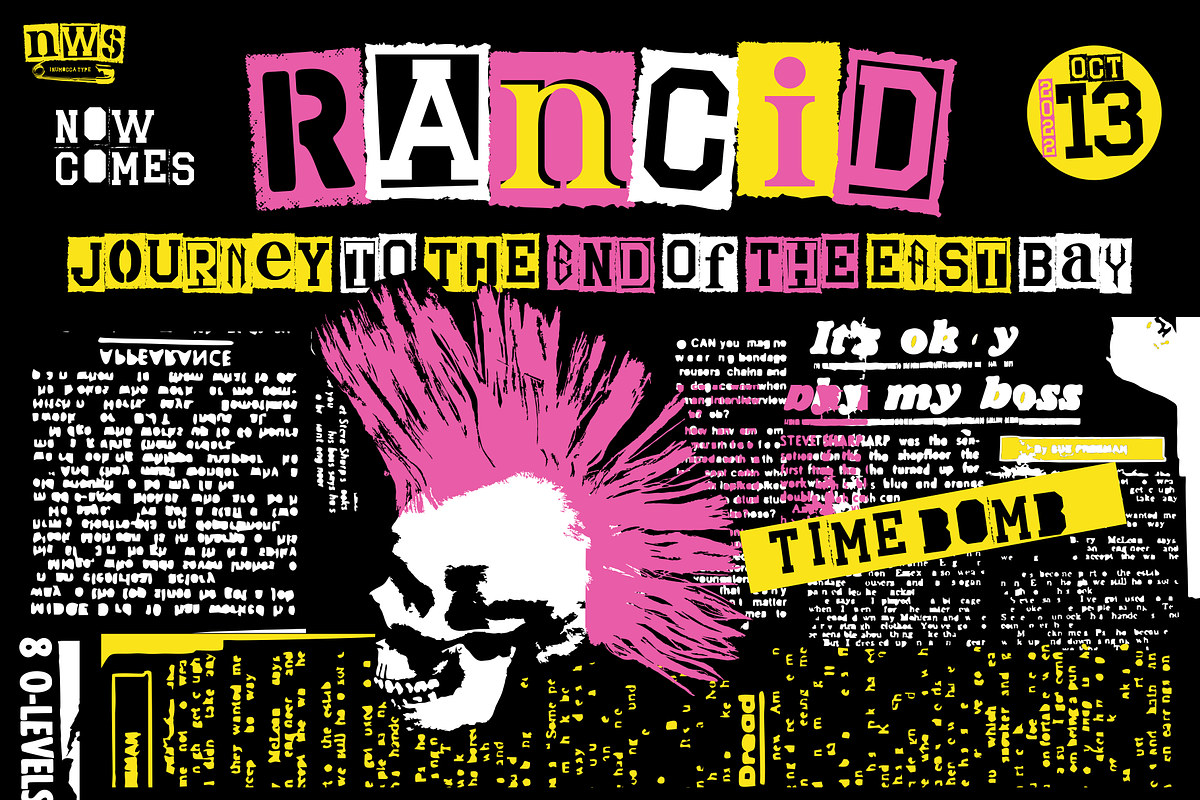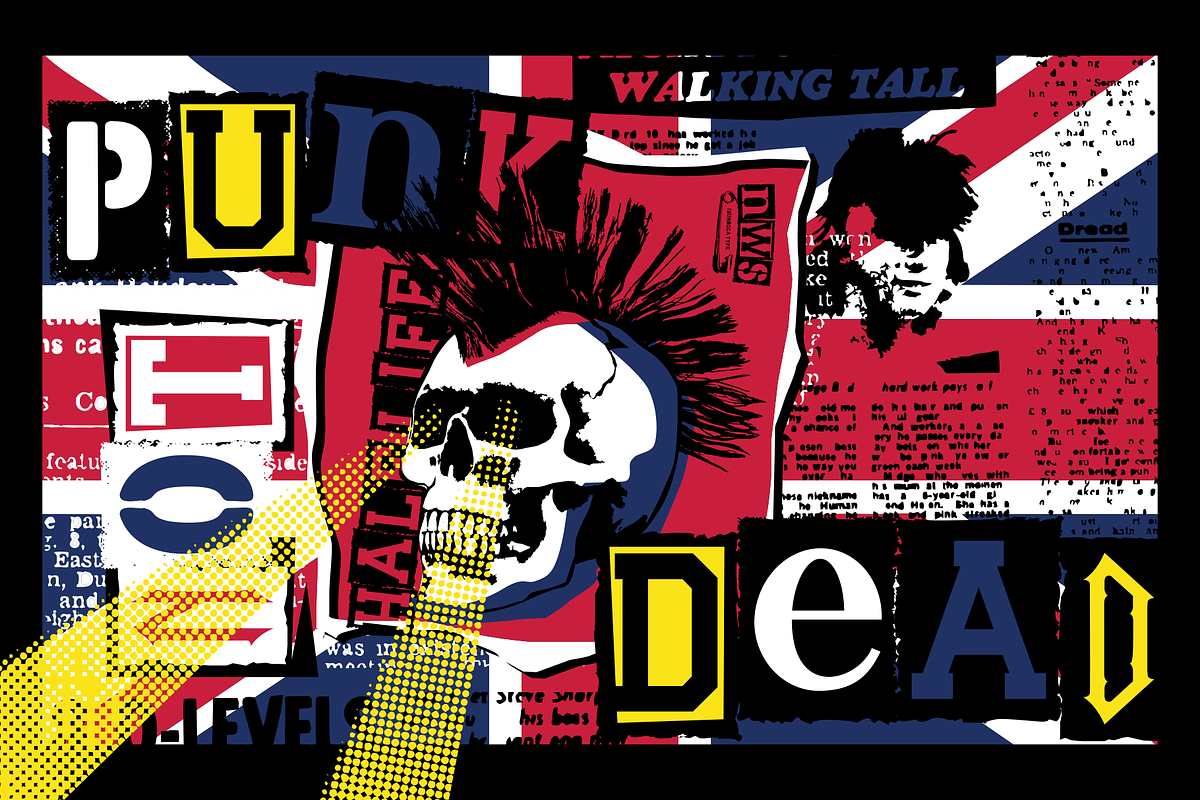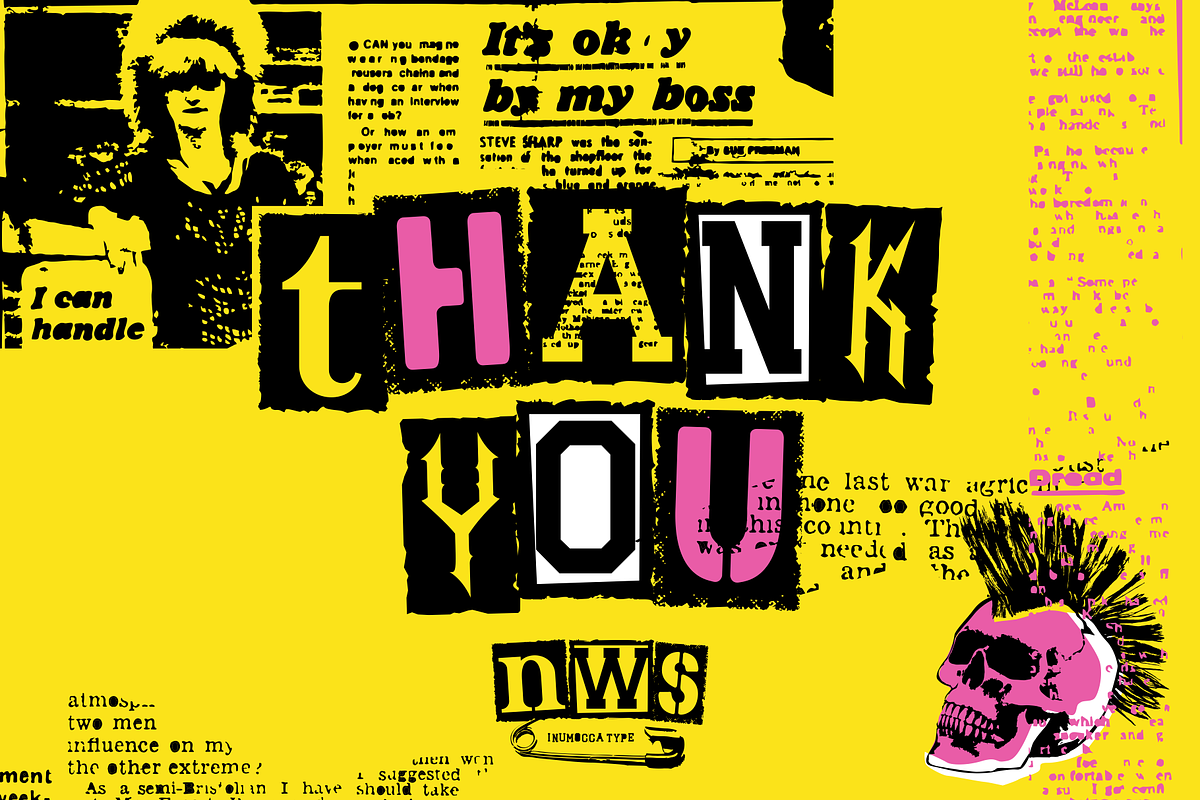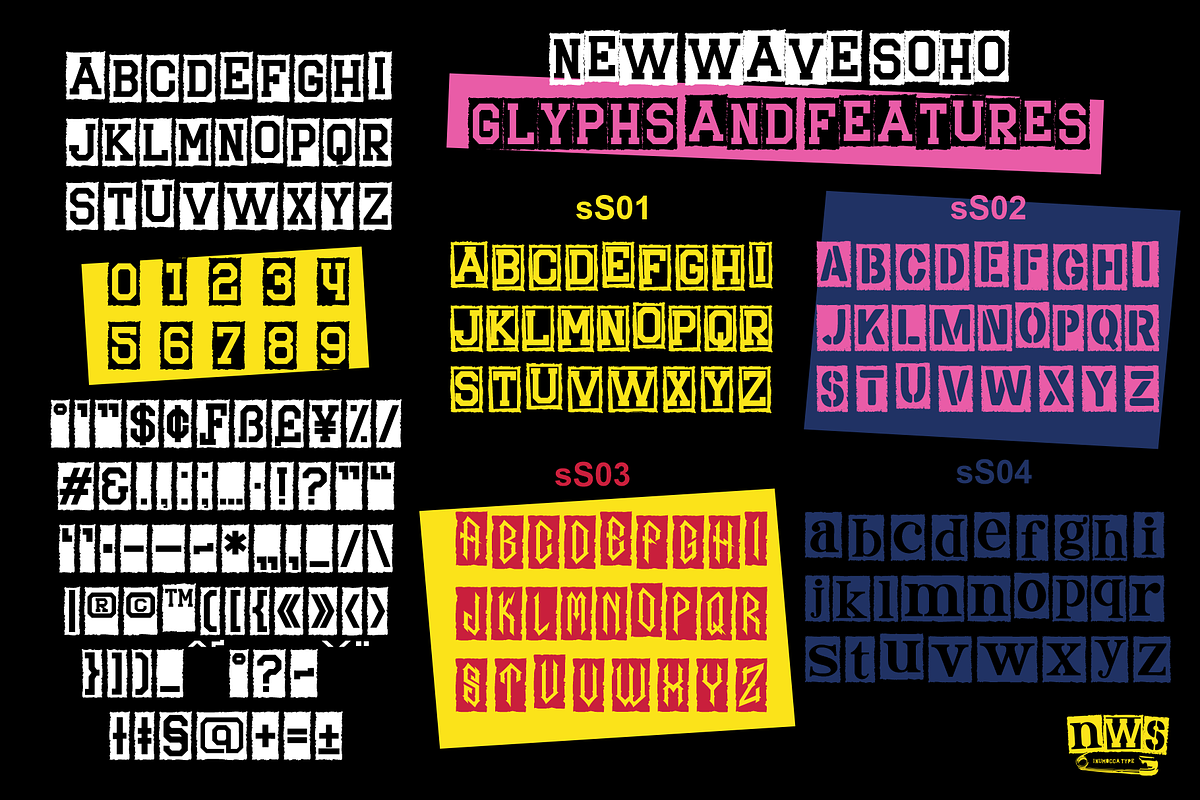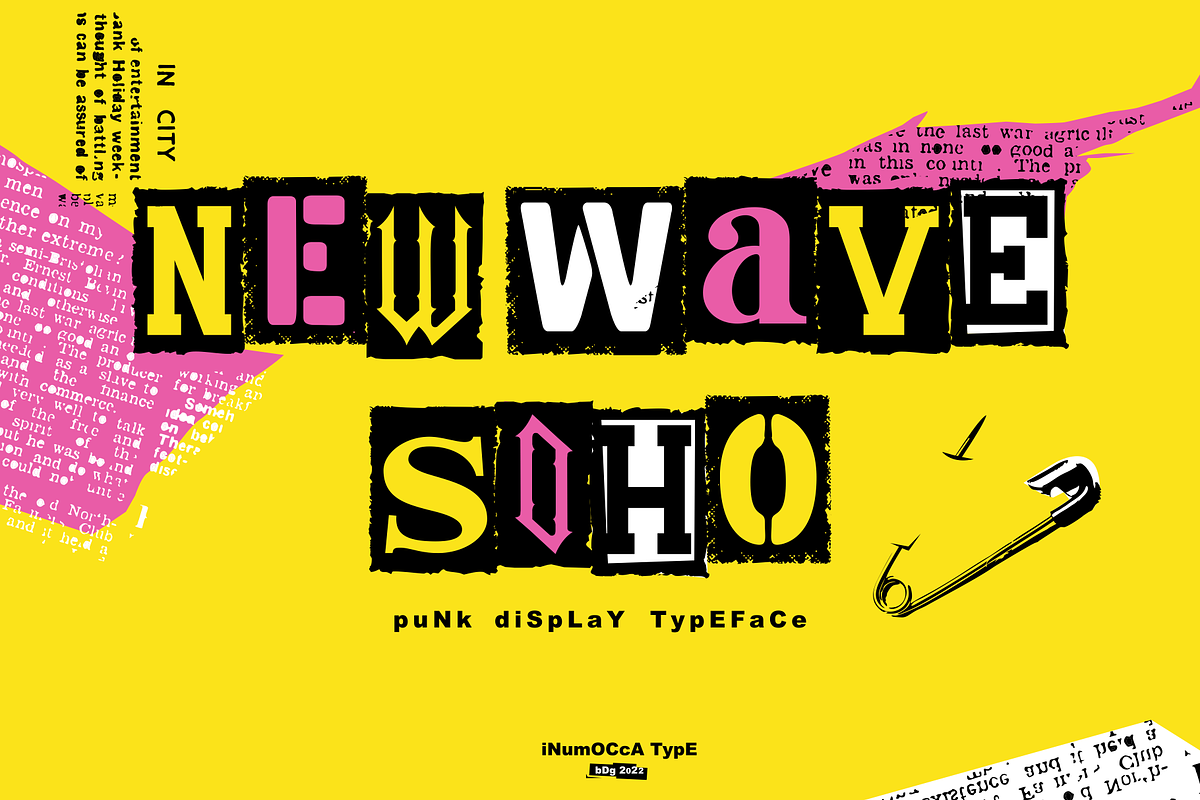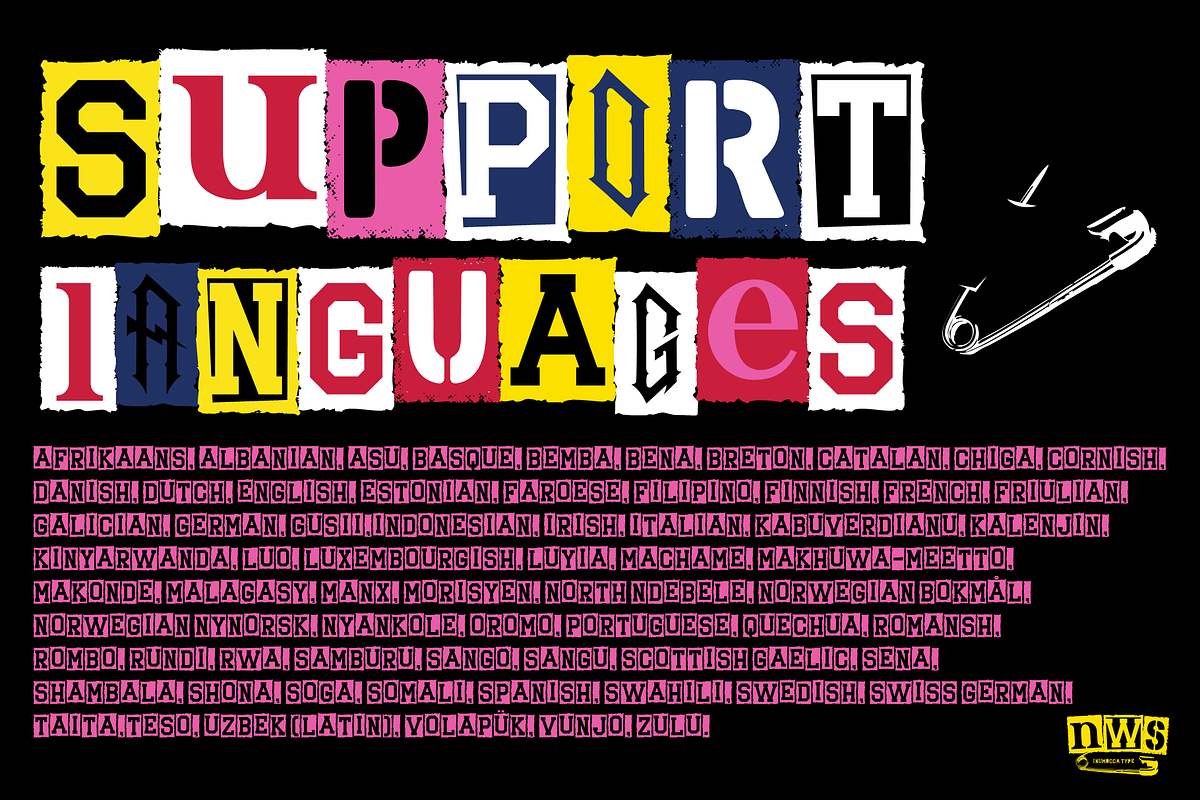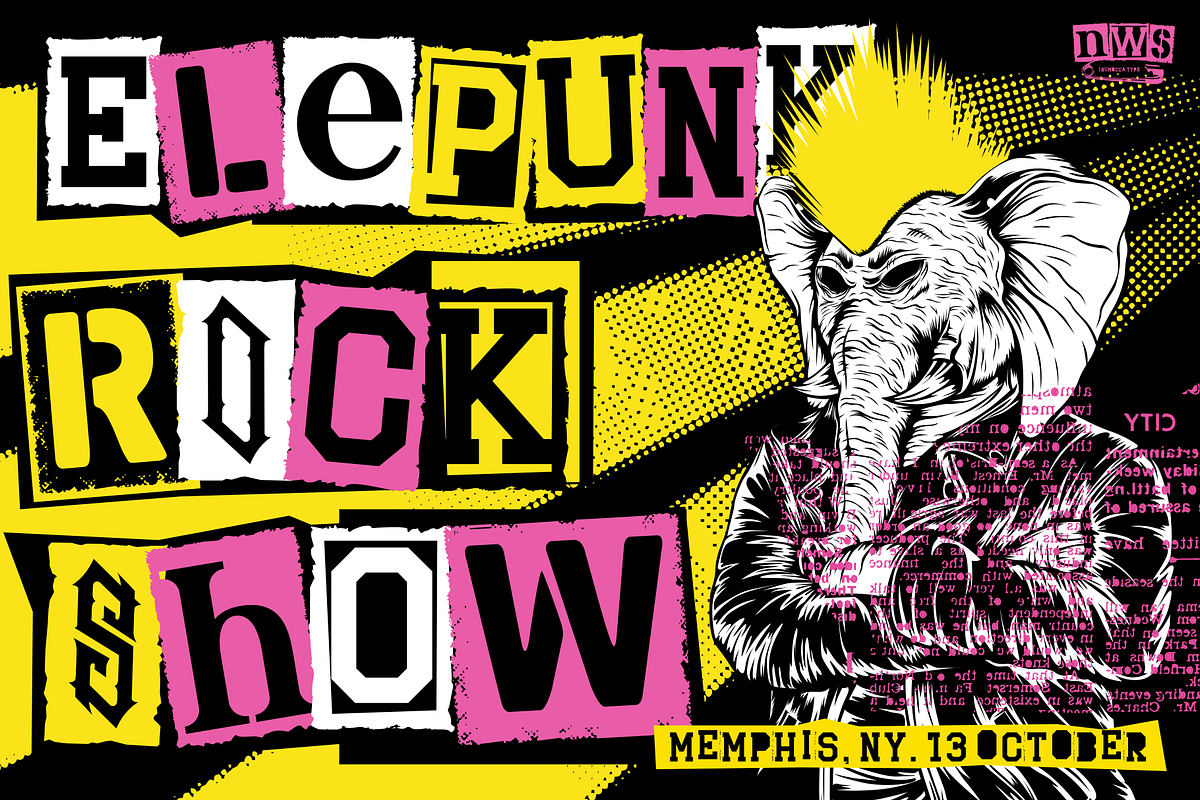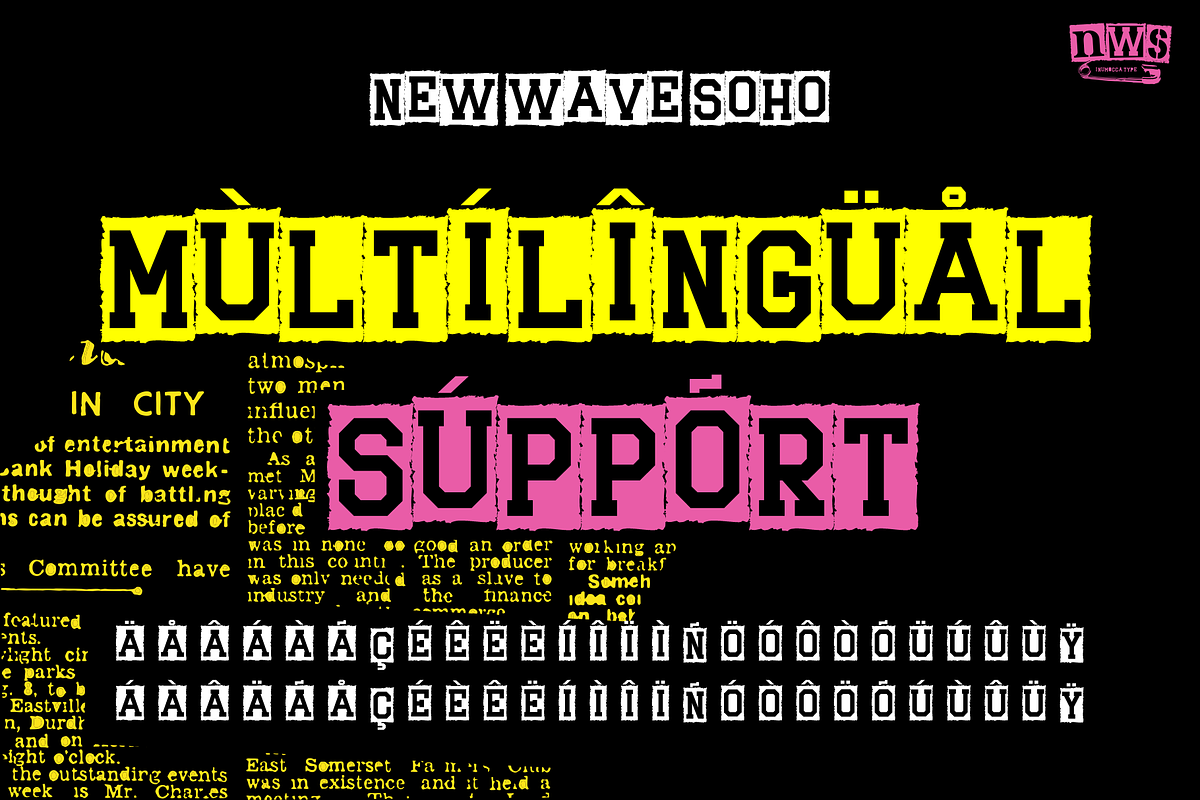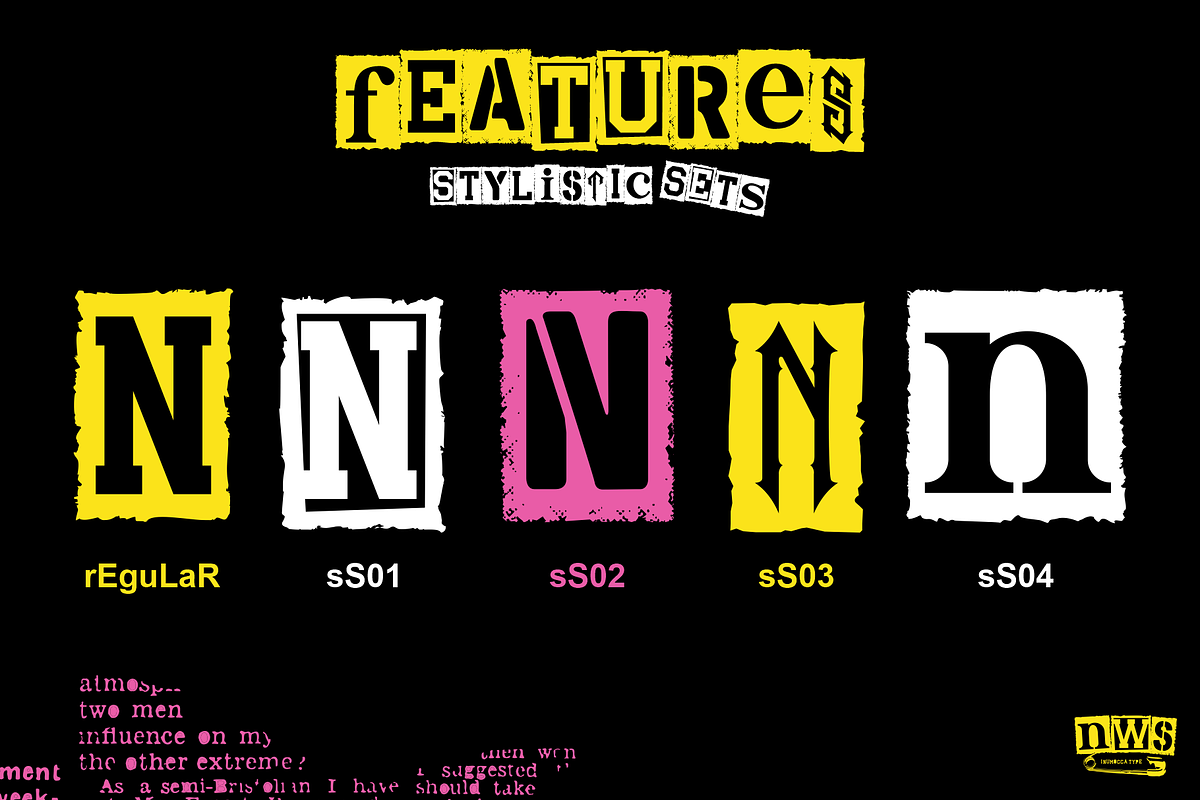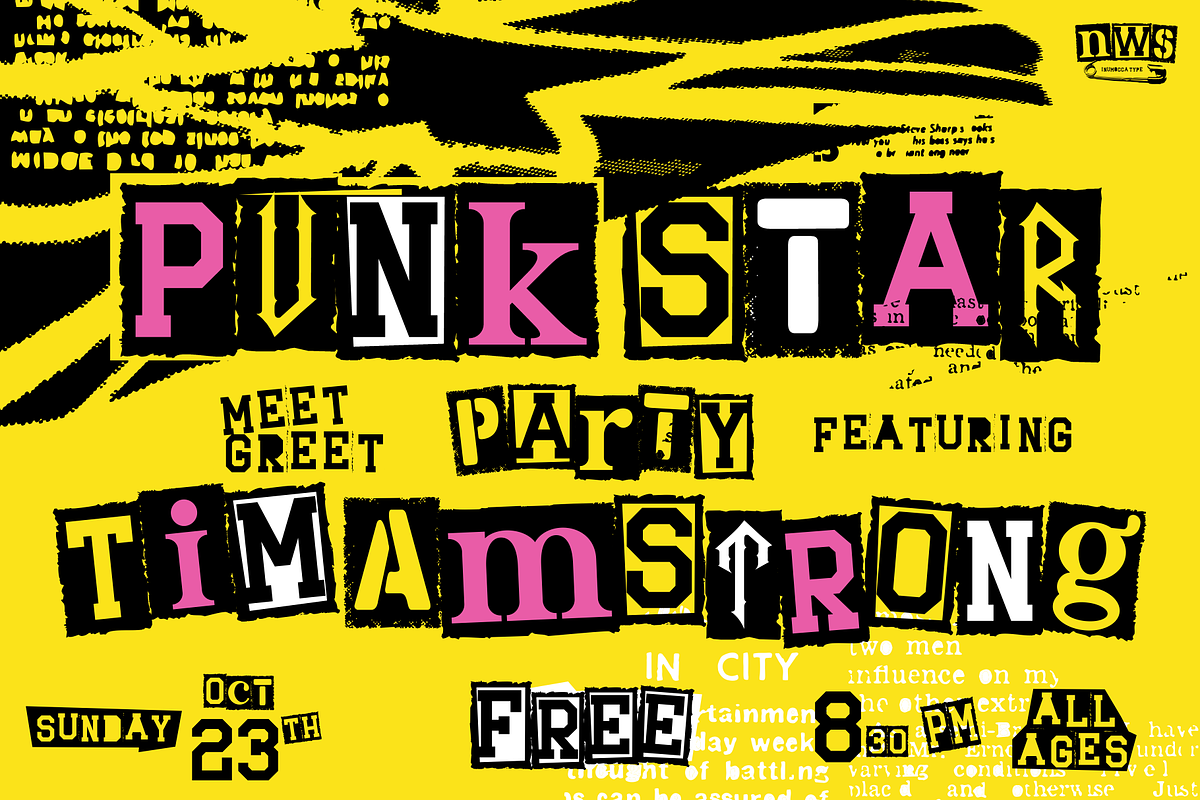
New Wave Soho
New Wave Soho Display Font, inspiration from punk poster, full energy, rebel, anti mainstream and dare to take something different. you will feel like you are walking in the 70s era. New Wave Soho presenting more alternates glyphs to pour your wild ideas. simplel for access of Unique Alternates Exellent typeface to use for covering your Project, like Branding, Movie Title, Headline Letter, Bookcover or Book Content, Magazine cover, Poster, Quotes Lettering, Logos, and more your project design.
- Unique glyphs
- Multilingual Characters Support
- UPPERCASE
- Numeric
- Symbol
- Punctuation Character
- Stylistic Set Alternates